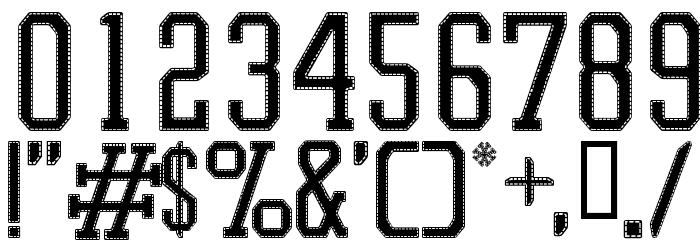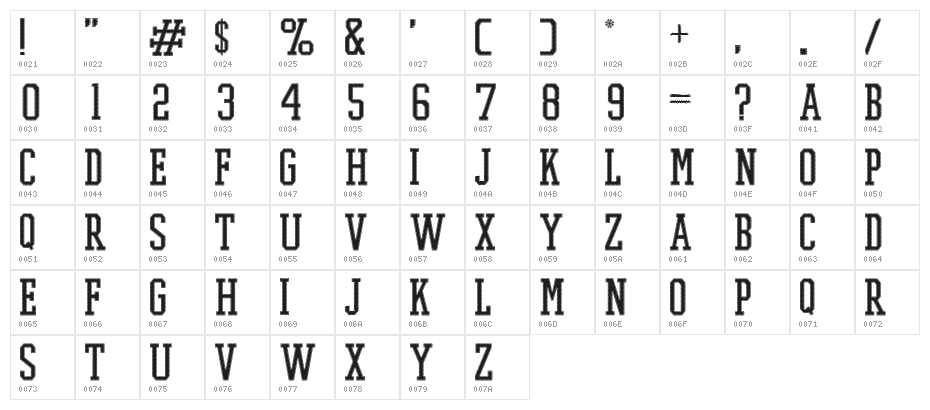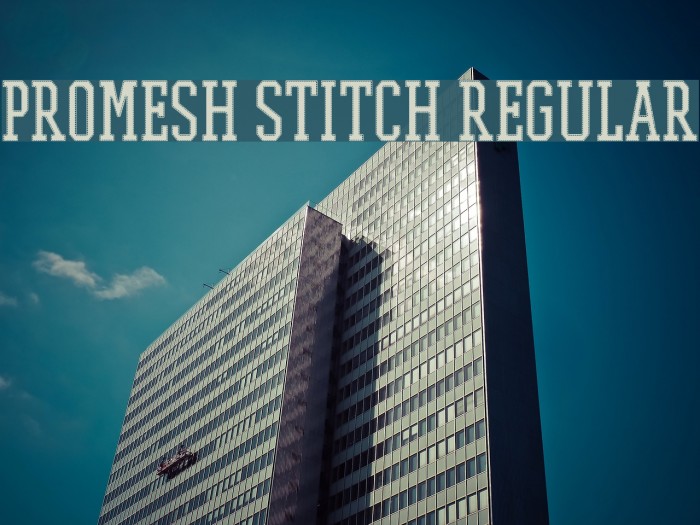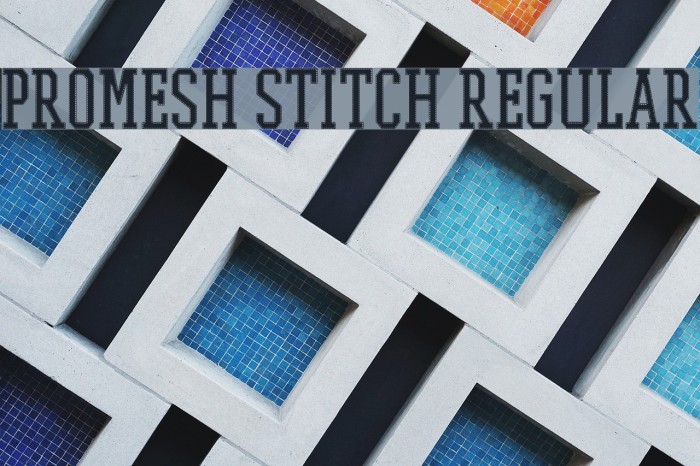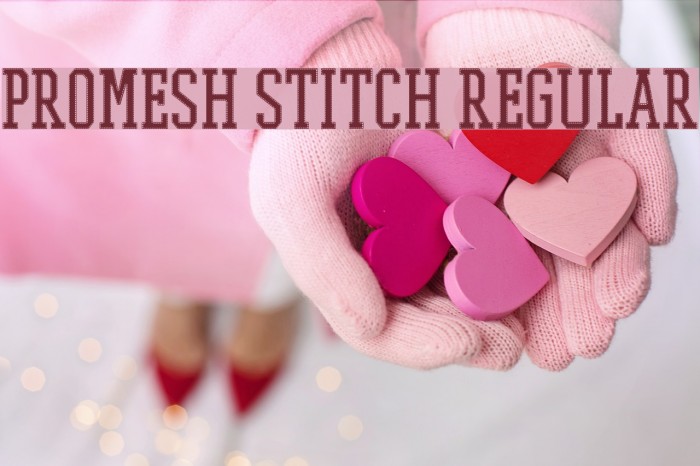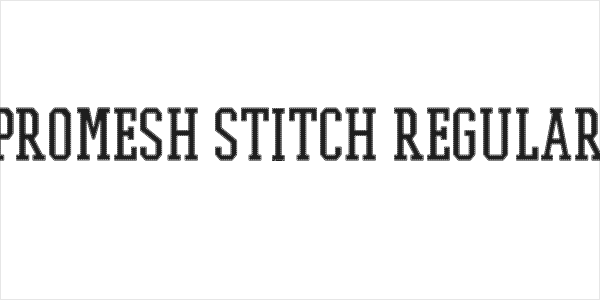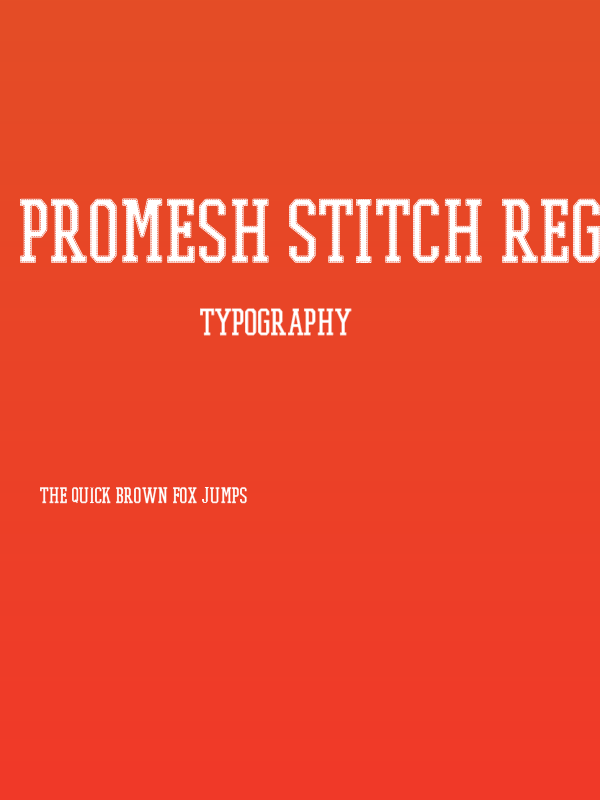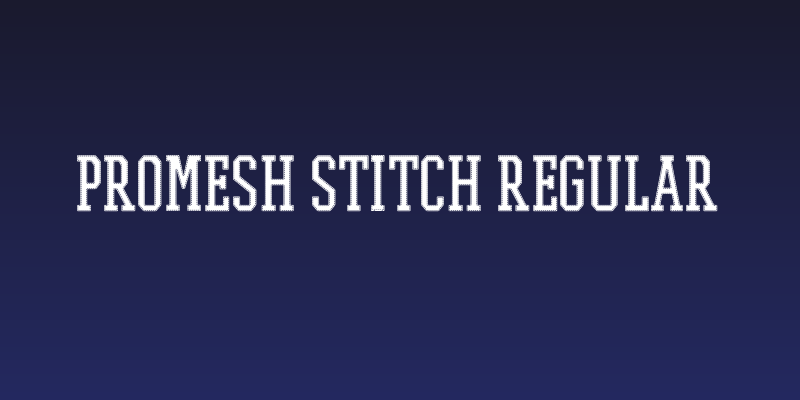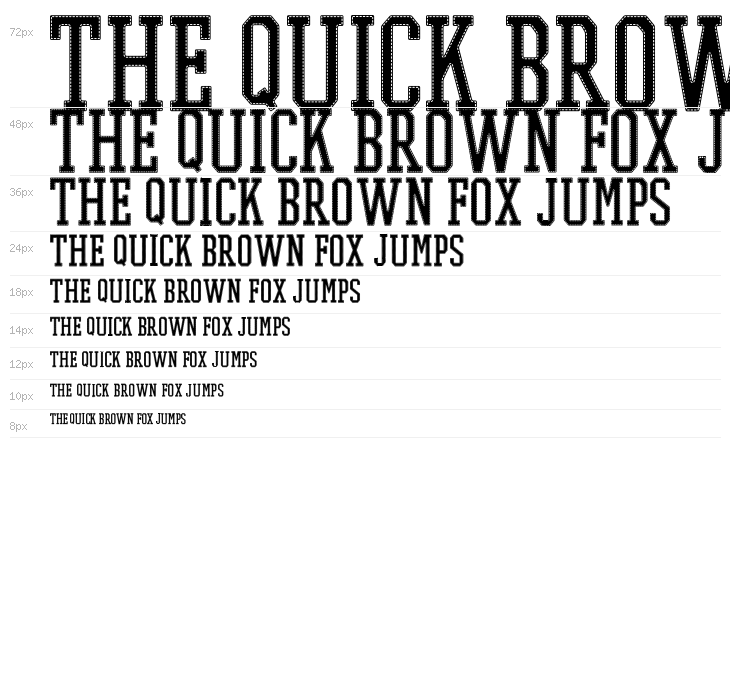
PROMESH Stitch Regular Font
PROMESH Stitch Regular Description
This font features a bold, athletic style with a distinctive mesh-like pattern within each character, reminiscent of sports jerseys. The uppercase letters are robust and commanding, while the lowercase letters maintain a consistent style, offering a cohesive look. The numerals are equally bold, making them ideal for impactful displays. Special characters are included, maintaining the same mesh pattern, adding versatility for various design needs. The overall appearance is dynamic and energetic, suitable for projects that require a sporty or competitive edge.